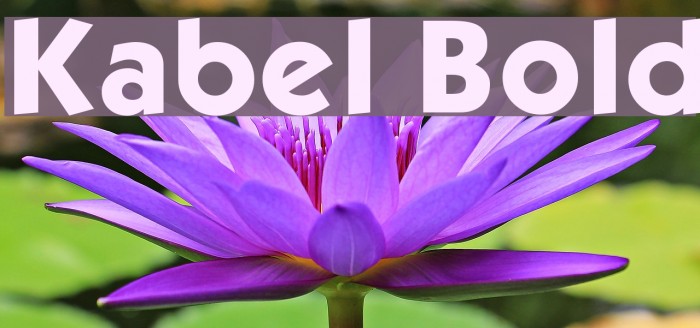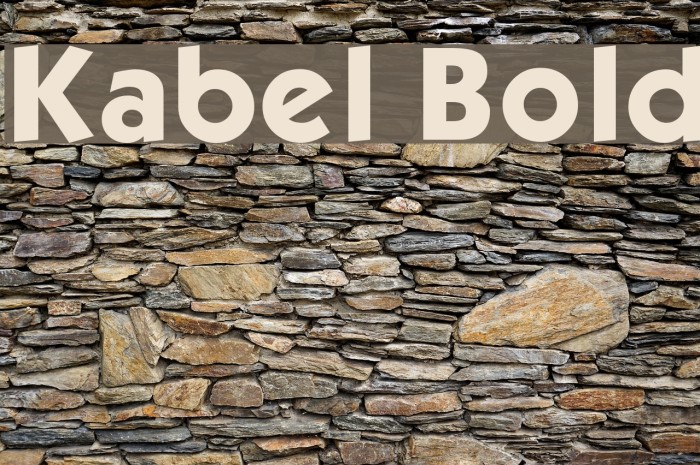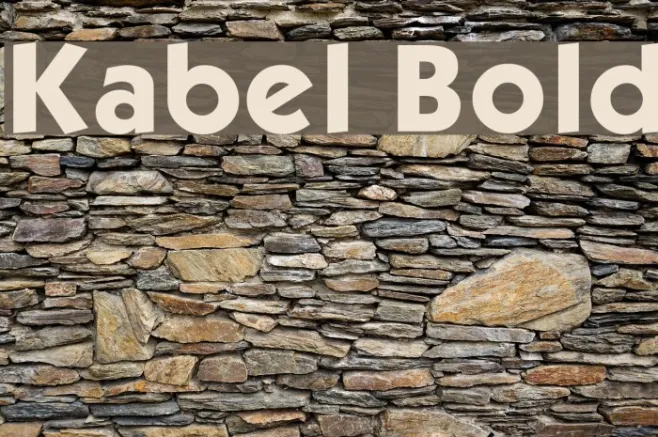
Kabel Bold Font
This typeface features a bold and geometric sans-serif design, characterized by its clean lines and strong presence. The letters are constructed with even strokes and minimal contrast, giving it a modern and assertive appearance. The uppercase letters are particularly striking, with a uniform height and width that create a cohesive look. The lowercase letters maintain the geometric style, with rounded edges that soften the overall feel. The numerals are clear and legible, making them suitable for various applications. Special characters are included, providing versatility for different uses.
A bold, geometric sans-serif font with clean lines and minimal contrast.
- Proposed Projects: Ideal for branding, advertising, headlines, and any project requiring a modern and bold typeface.
- Use Case: Headlines, Logos, Branding